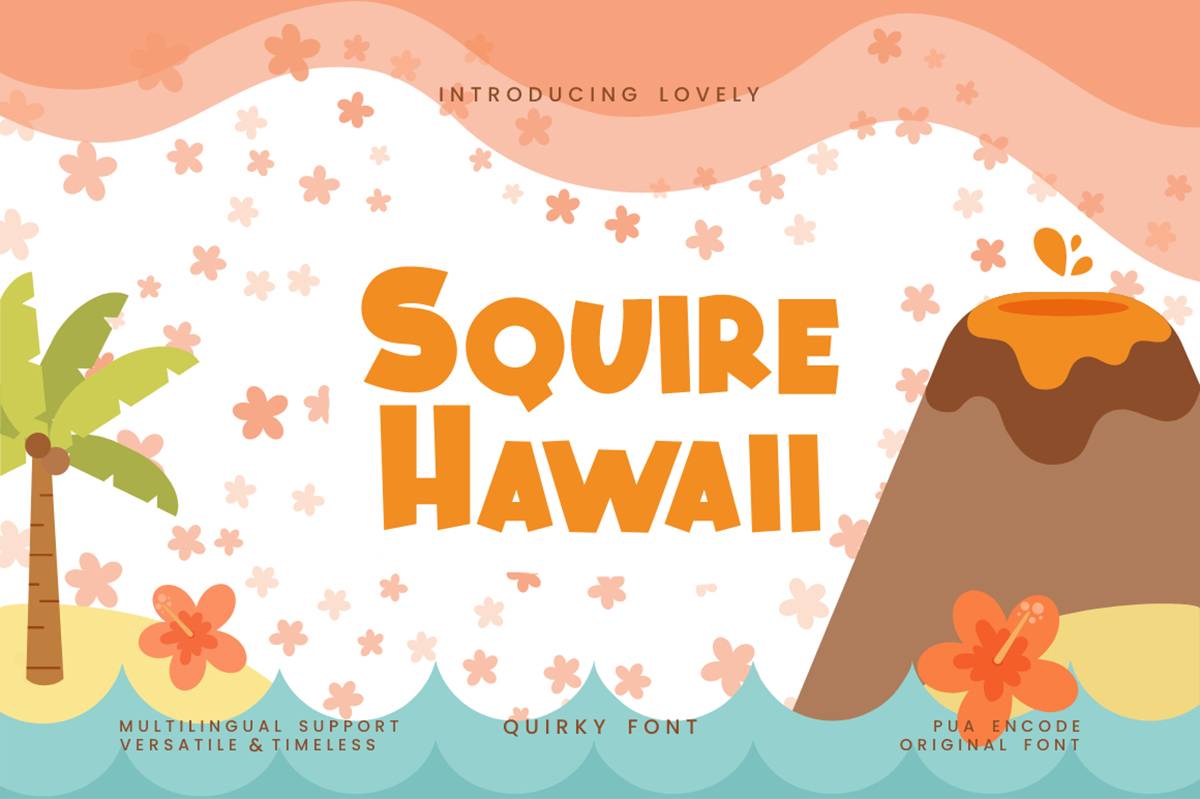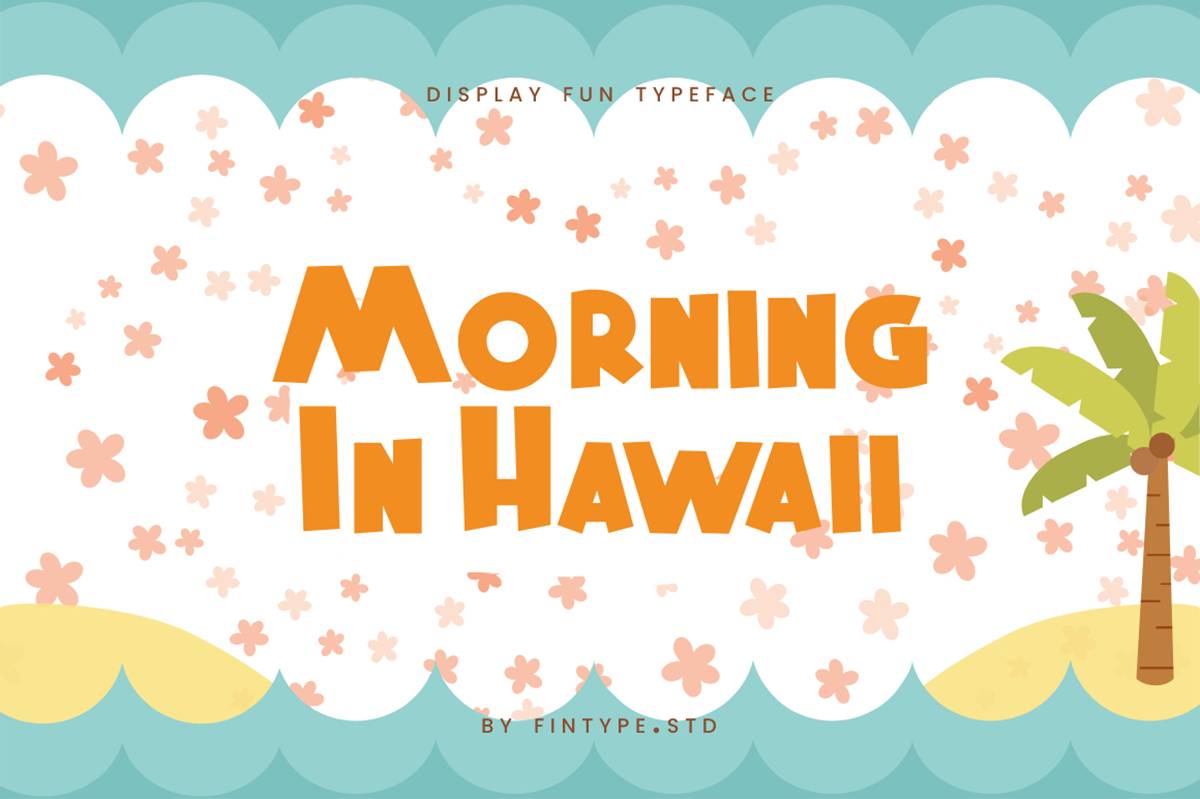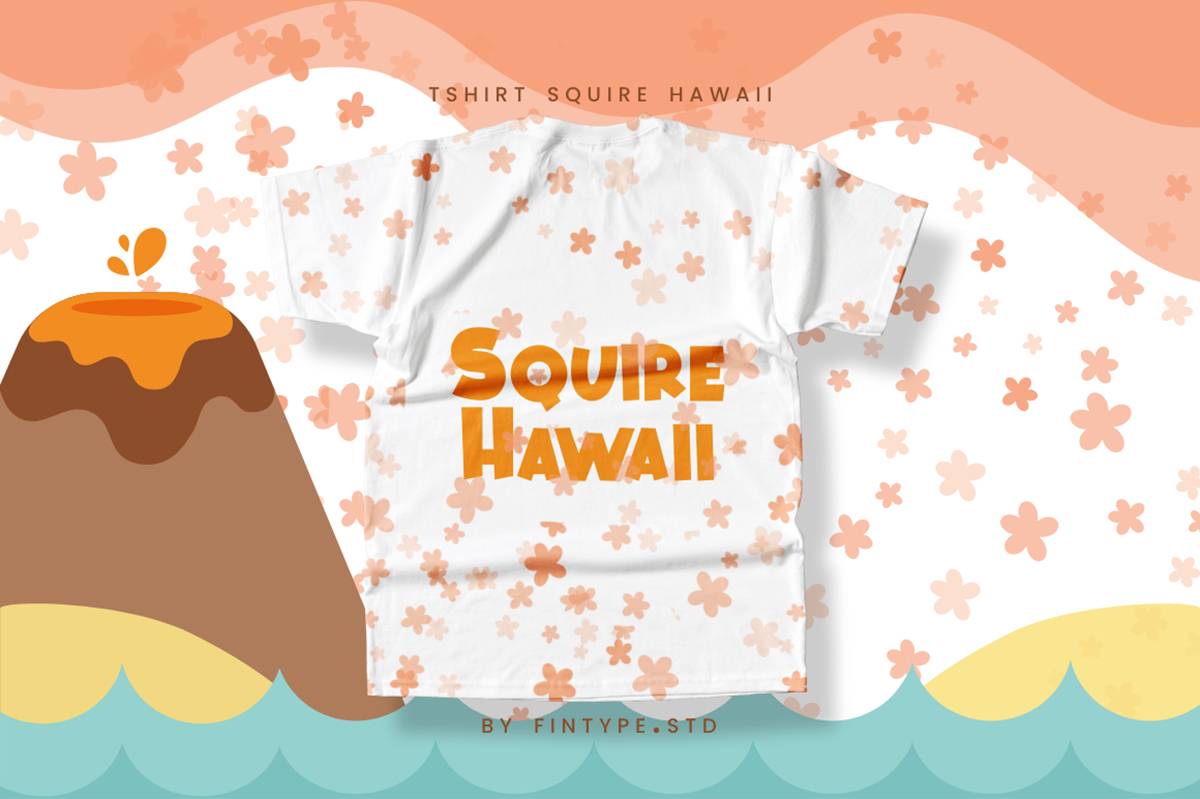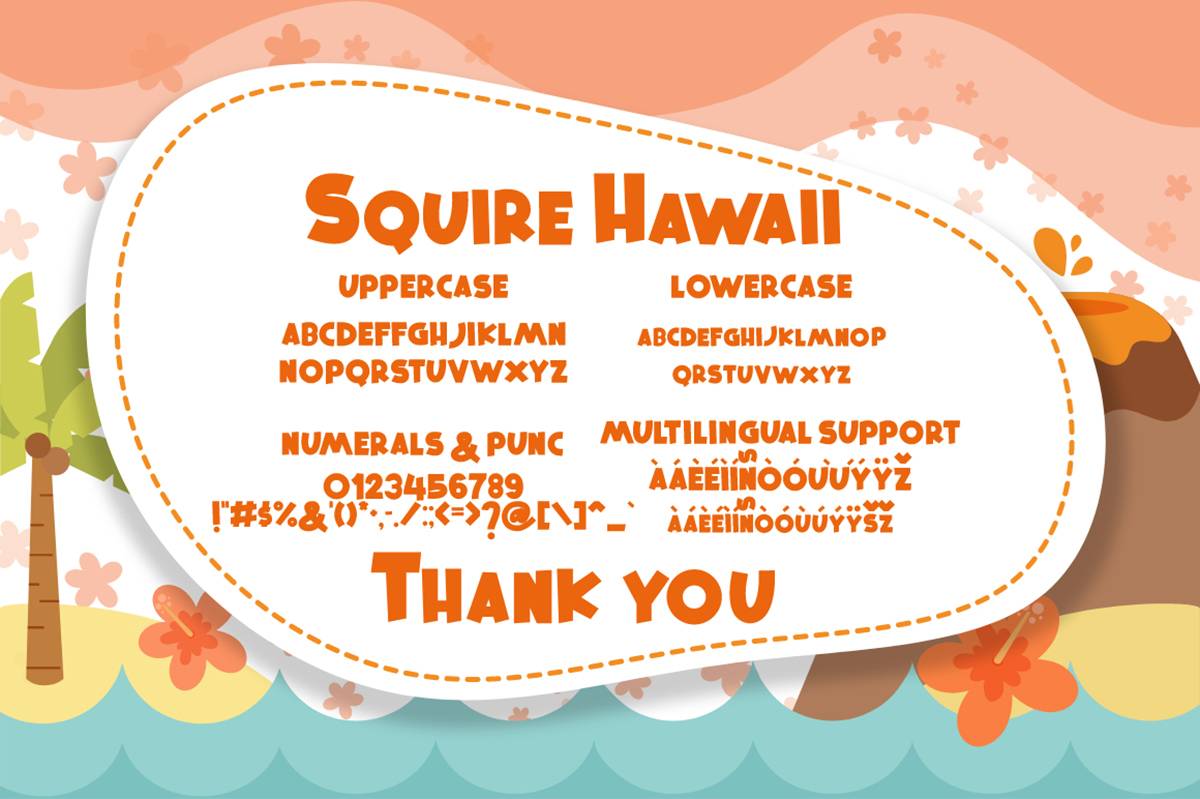
Squire Hawaii is a bold, playful sans serif font with a chunky, irregular shape that gives it a fun and informal vibe. Its thick strokes and quirky letterforms make it perfect for attention-grabbing headlines, posters, and branding that want to convey energy and creativity. This font works well in casual, youthful designs where a lively and unique personality is desired.
Squire Hawaii Font
About Squire Hawaii Font
| Font family | Squire Hawaii Font |
| Designer | FinTypeStudio |